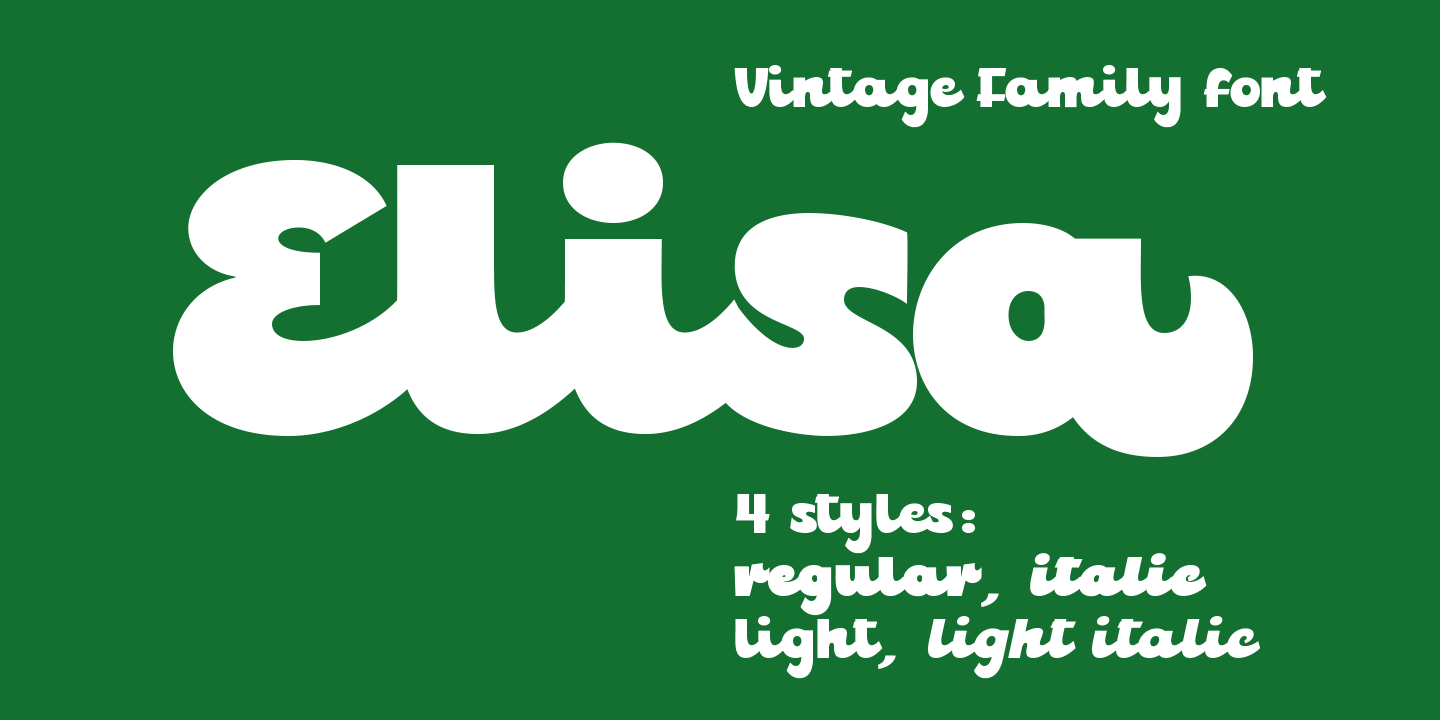
Elisa
Designed by Carine de Wandeleer, Elisa is a brush script font family. This typeface has four styles and was published by Eurotypo.
Discover the new Elisa font! Elisa fuses vintage with modern in four unique styles: Regular, Italic, Light, and Light Italic. It’s a handwritten and heavyweight font with an irresistible vintage charm that captivates at first glance. Inspired by mid-century designs, this font transforms any project into a vibrant piece. Each letter is full of personality, bringing warmth and authenticity to every word.
Elisa invites you to let your creativity run wild. Designed to make an immediate impact, it features numerous OpenType features, including a wide variety of ligatures that give your text a fluid and natural feel. It also offers multilingual support.
If you’re looking for a bold typeface for logos, packaging, labels, posters, and headlines, Elisa is the perfect choice. Take your designs to the next level with its unique personality!